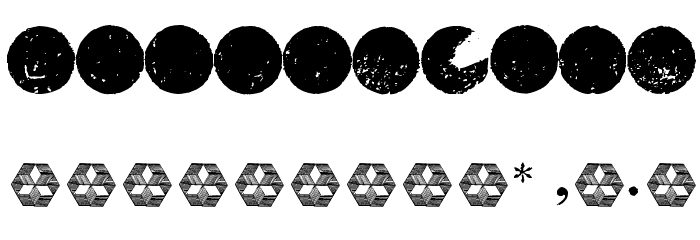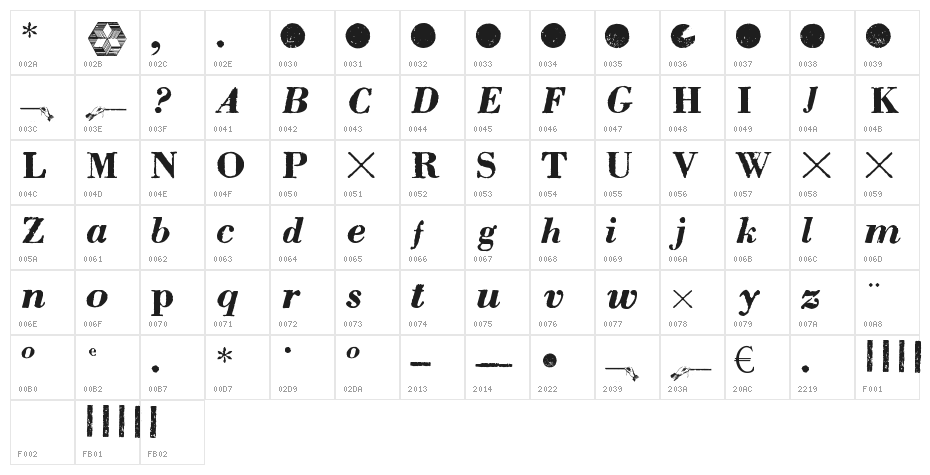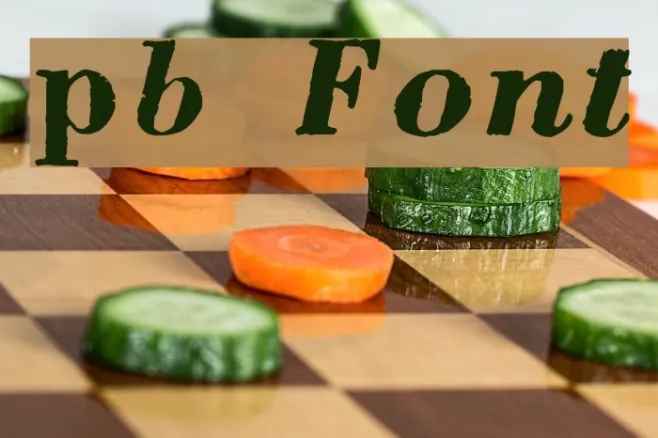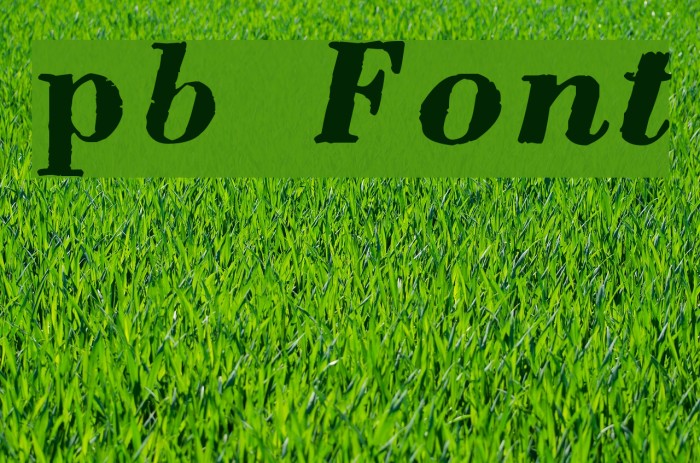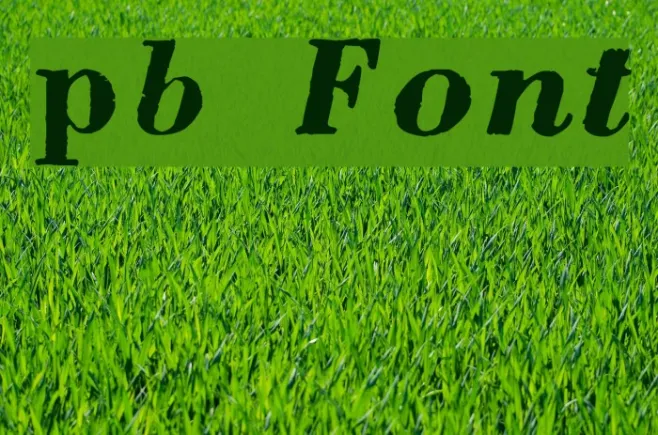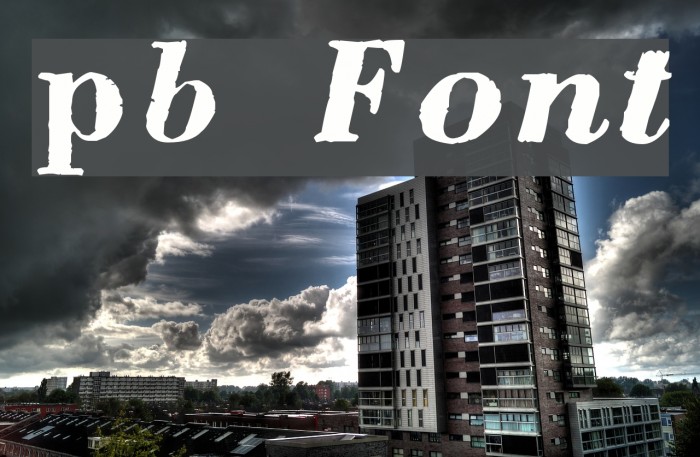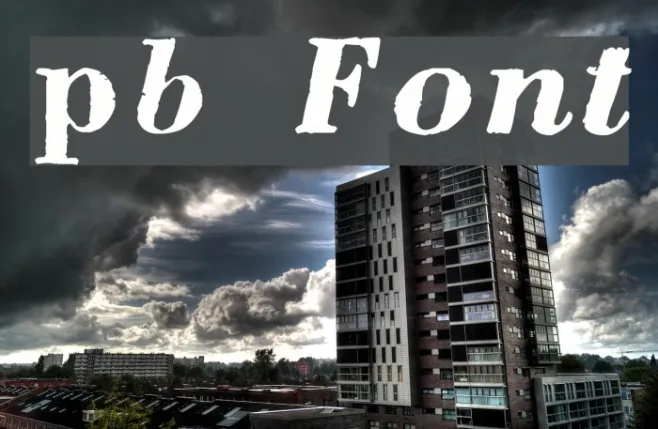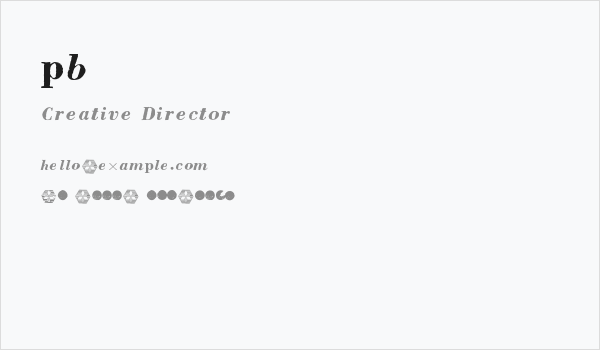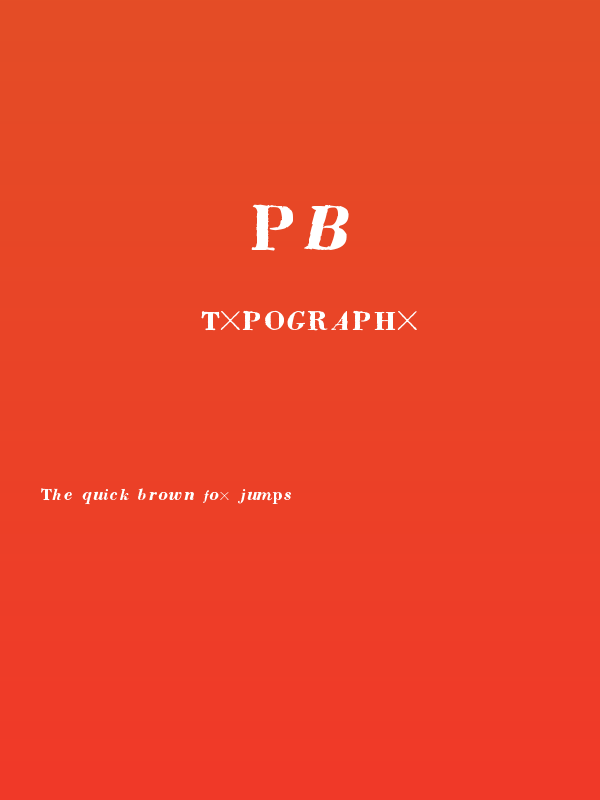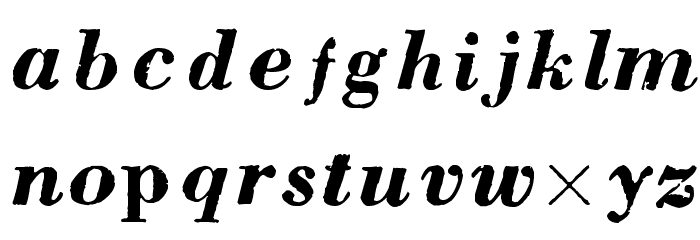
pb Font
pb Description
This font exhibits a bold and distressed style, characterized by its rough, textured appearance that gives it a vintage and worn look. The uppercase letters are bold and slightly italicized, adding a dynamic feel, while the lowercase letters maintain a consistent style with a slightly more pronounced slant. The numbers and special characters follow the same distressed aesthetic, making them suitable for designs that require a rustic or grunge touch. The font's unique texture and bold presence make it ideal for creating impactful headlines or logos that need to stand out.
| Proposed Projects | Ideal for vintage-themed posters, logos, album covers, and any design requiring a bold, rustic aesthetic. |